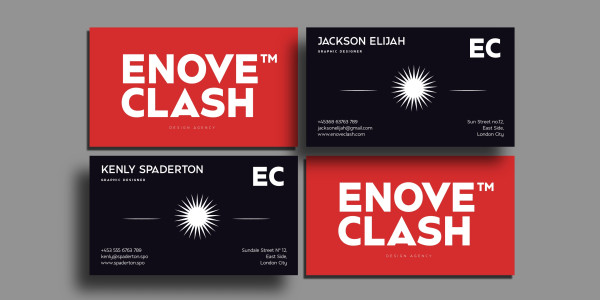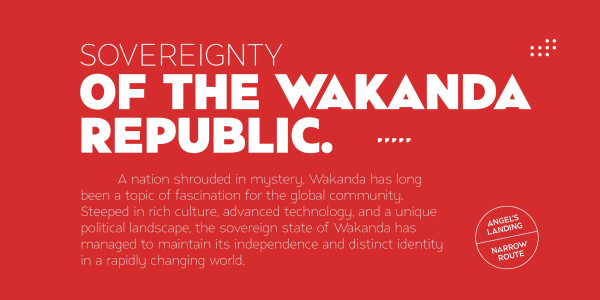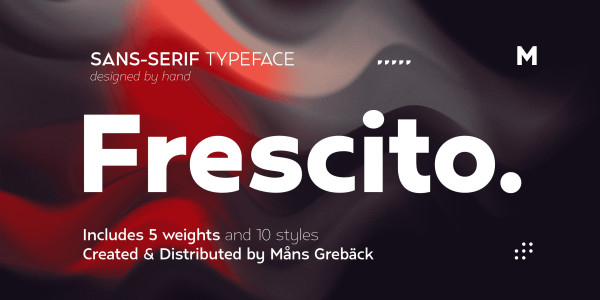
Frescito Font
Frescito Font is a modern sans-serif typeface that embodies a fresh, cool, and street-smart aesthetic.
Designed to be both balanced and versatile, Frescito is a font that combines the best of both worlds: an air of freshness and modernity with an unpretentious, timeless and classy appeal.